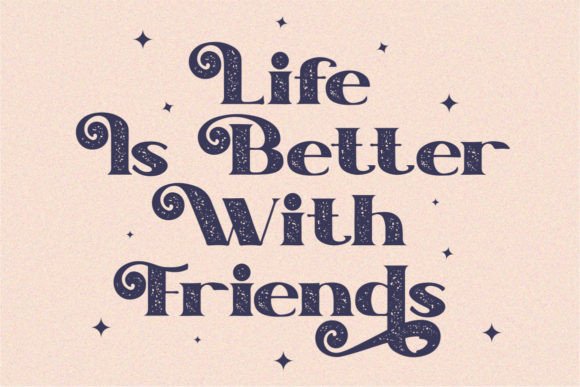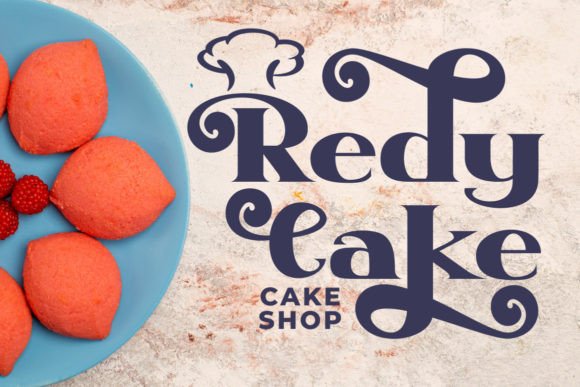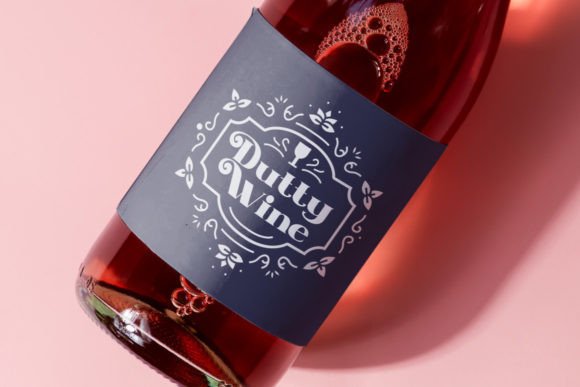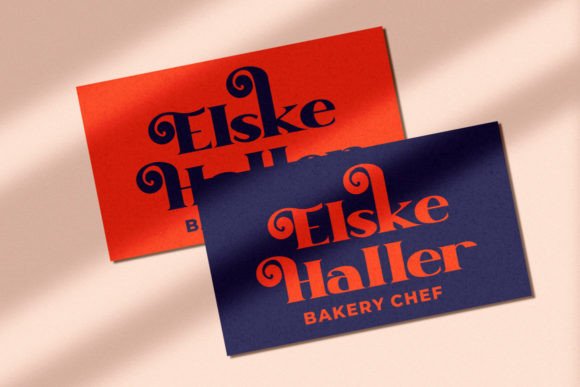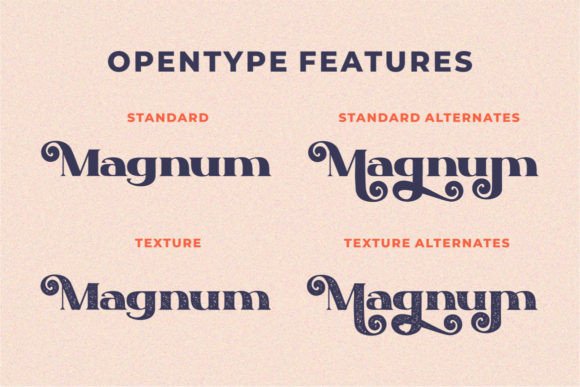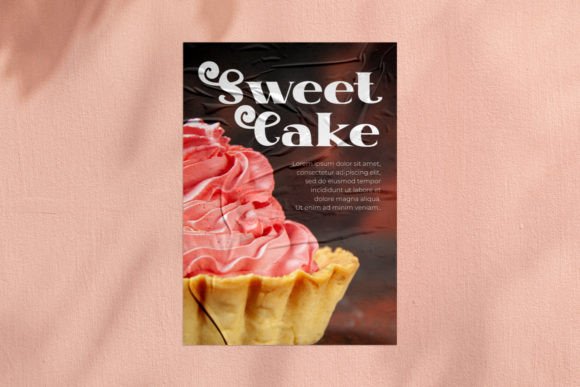
Introduction to Blize Queen Font
Blize Queen is a stylish, bold, and gorgeous display font.
Masterfully designed to become a true favorite, this font has the potential to bring each of your creative ideas to the highest level Blize Queen is PUA encoded which means you can access all the glyphs and ligatures with ease.